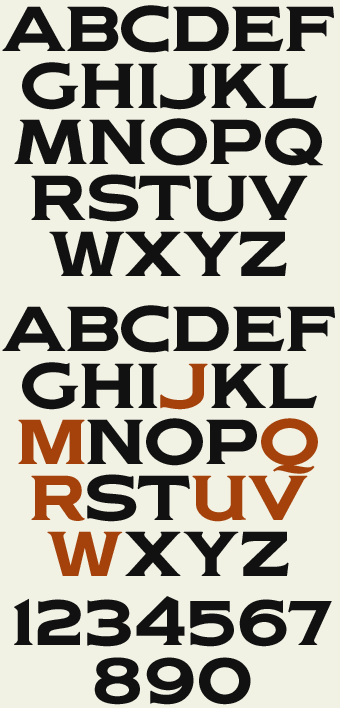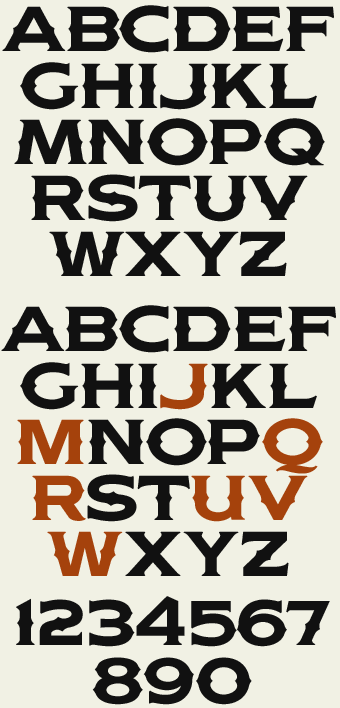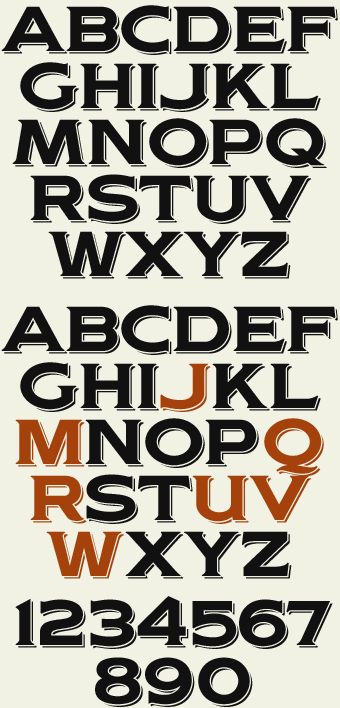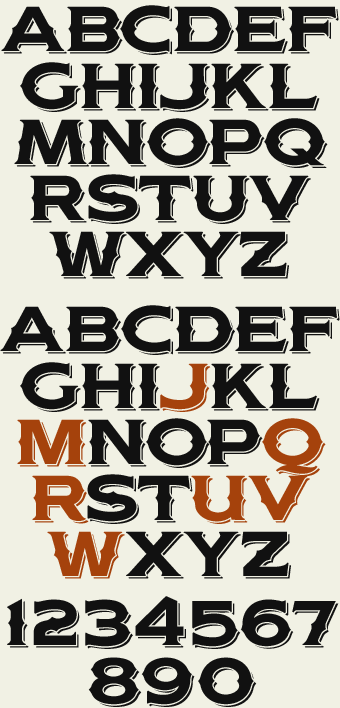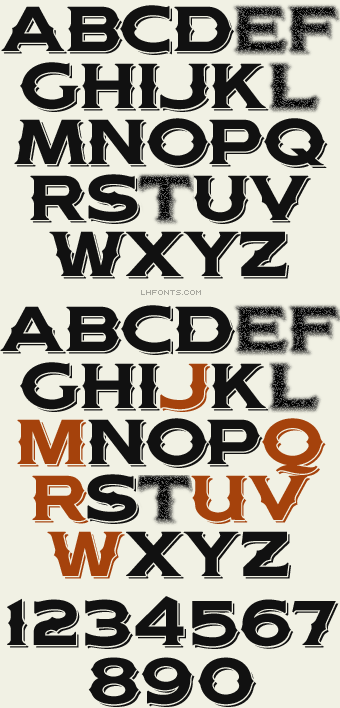
| Woodmereby John Davis |
LHF Woodmere is a bold, masculine letter style inspired by old firetrucks from the late 1920's. A more unique, classic substitute for the often overused "Copperplate" font. Perfect for designs that require an appearance of stability (banks, professional services, etc.) Set includes 4 fonts: Regular, Spurs, Regular Shadow and Spurs Shadow.
Woodmere Regular
Woodmere Spurs
Woodmere Regular Shadow
Woodmere Spurs Shadow